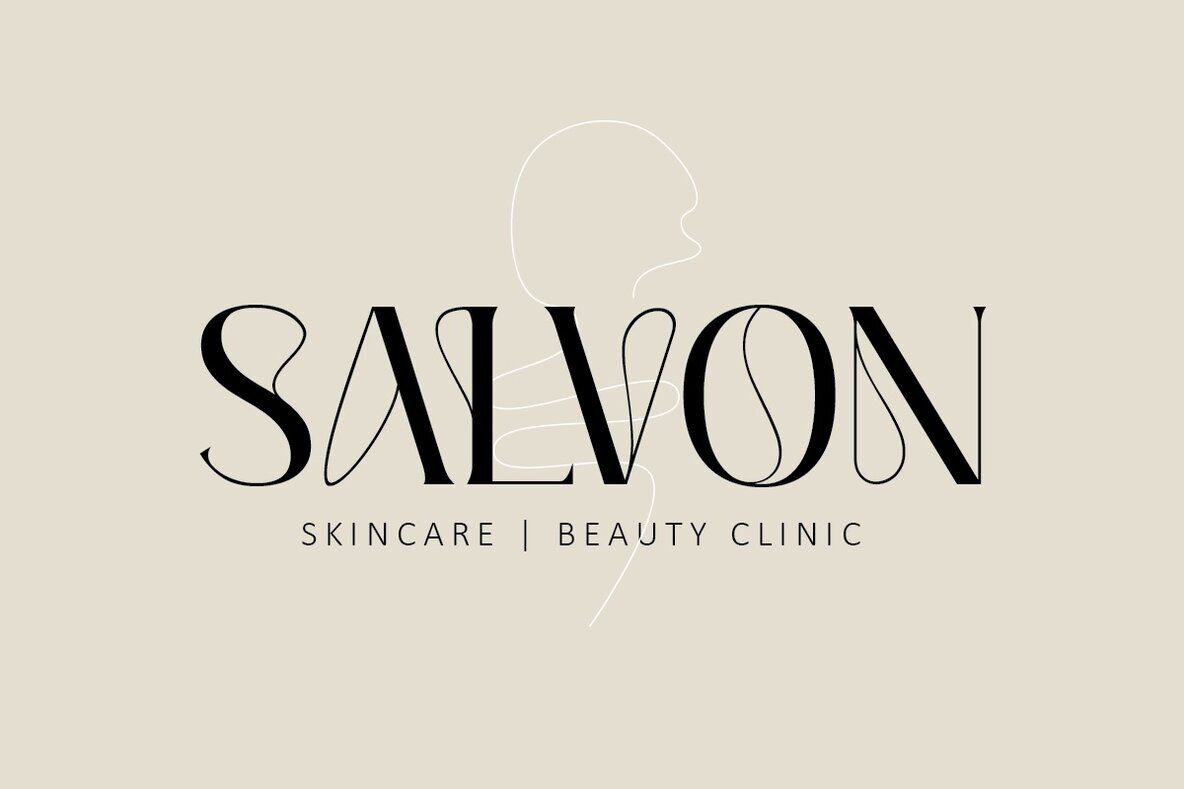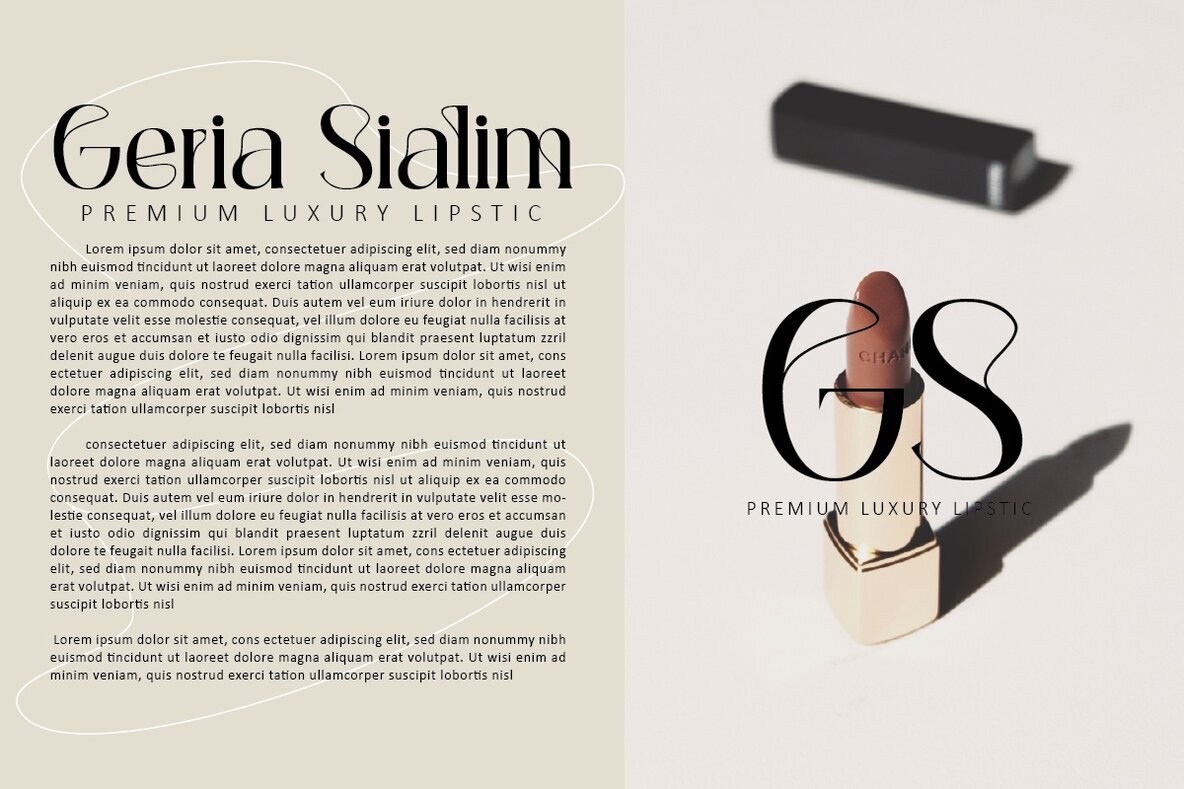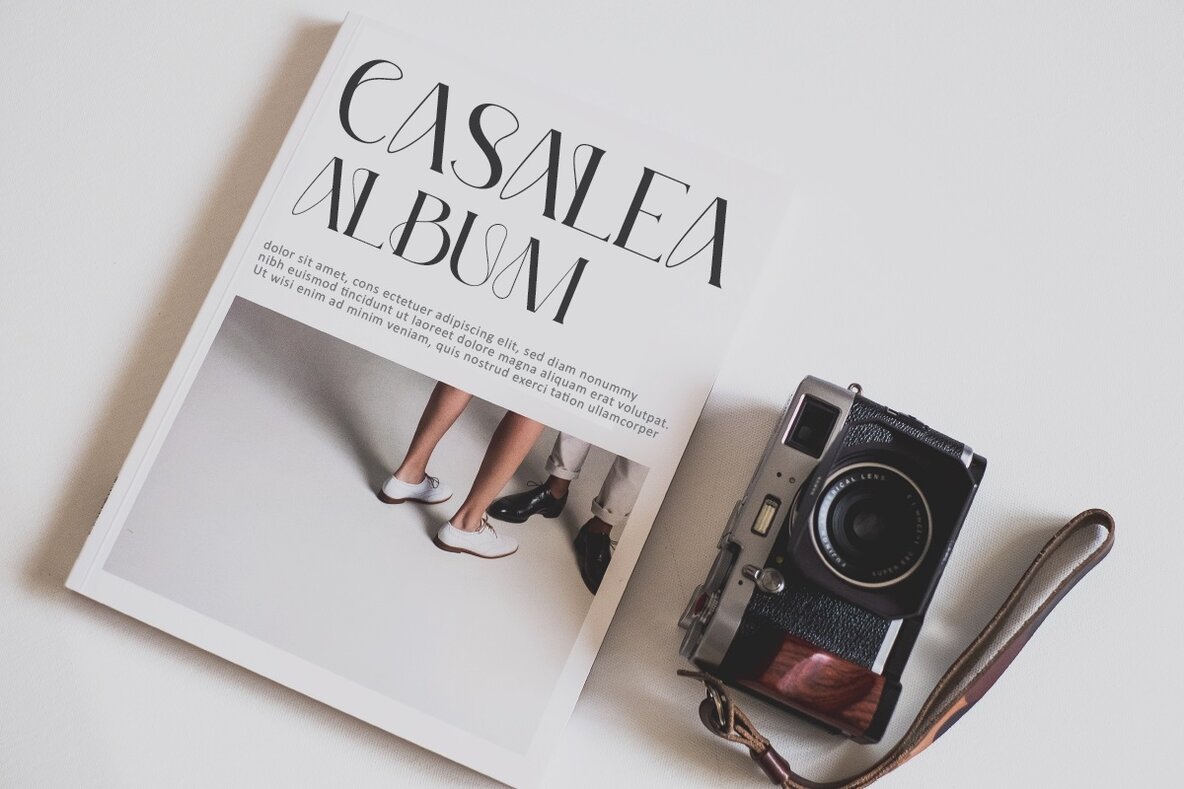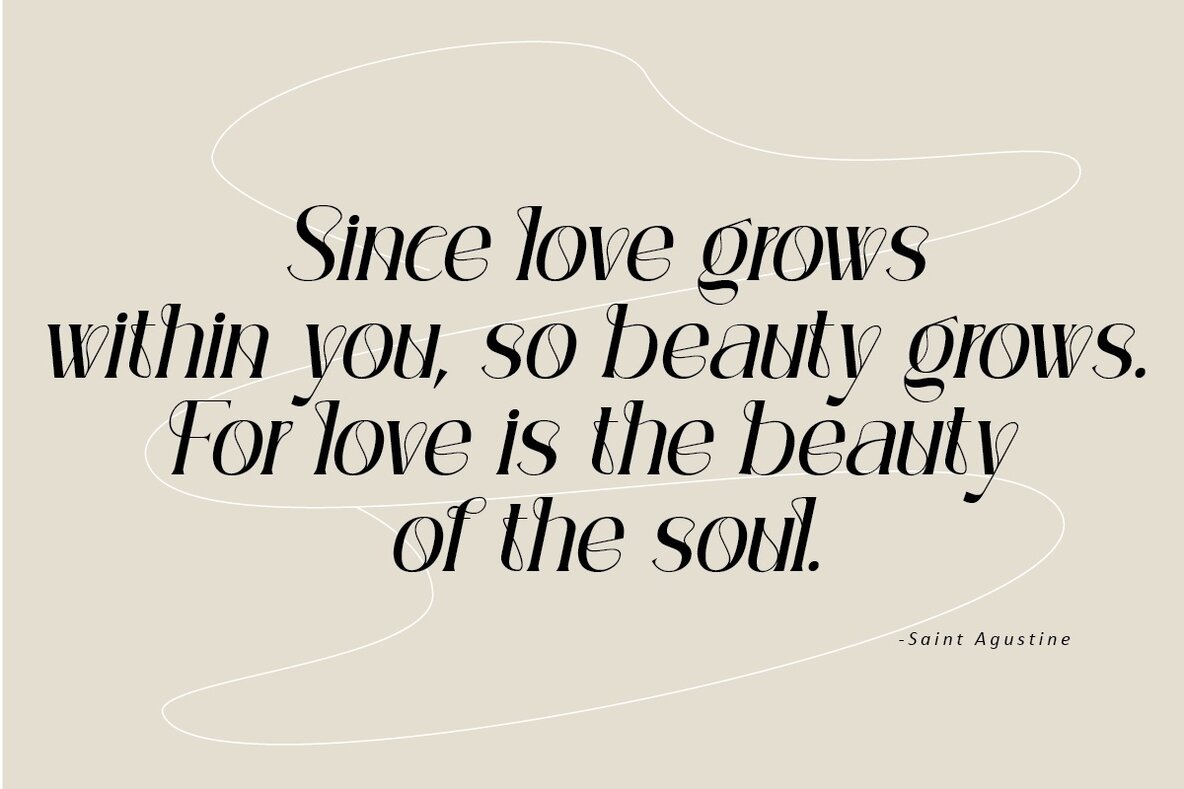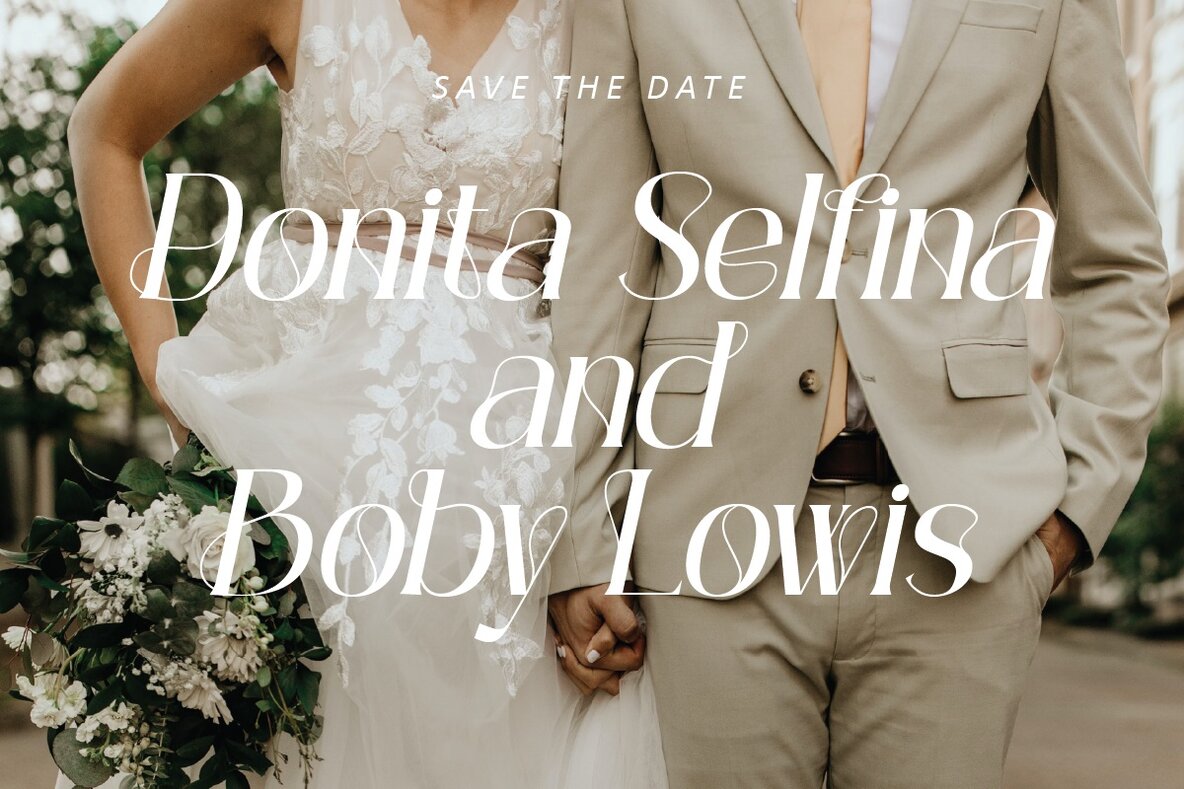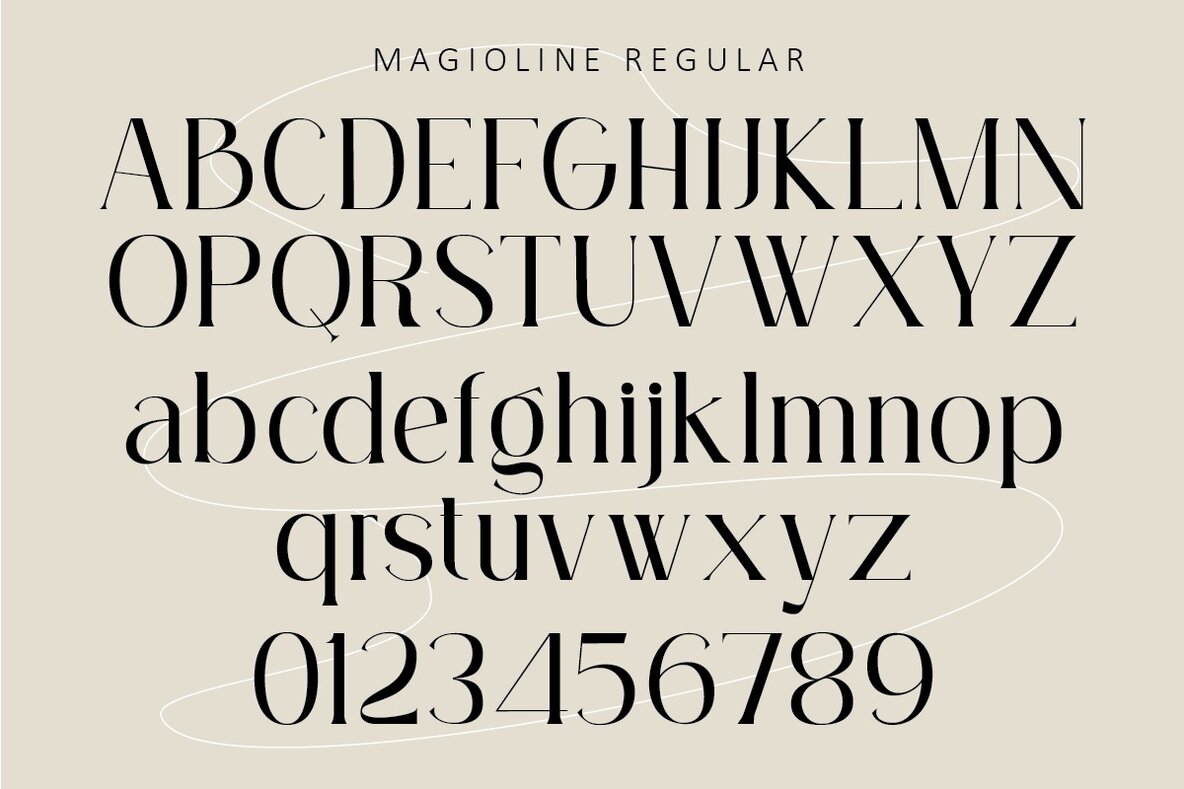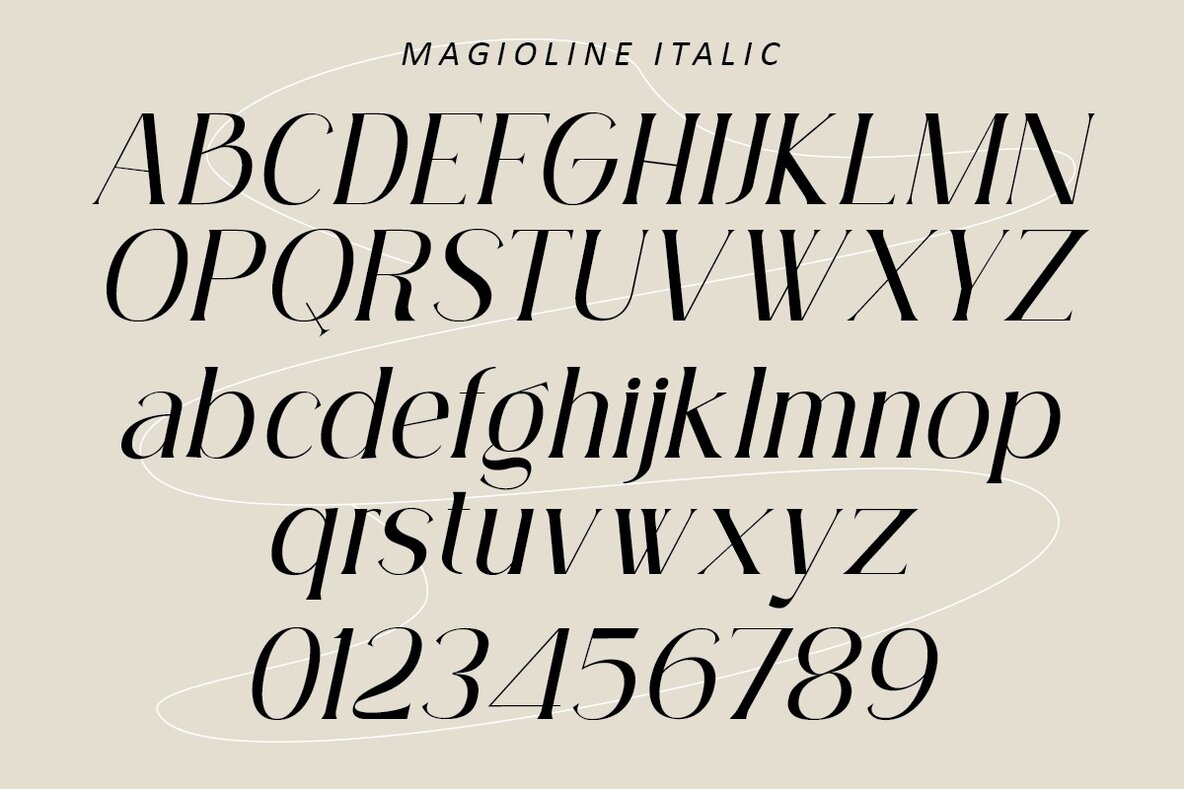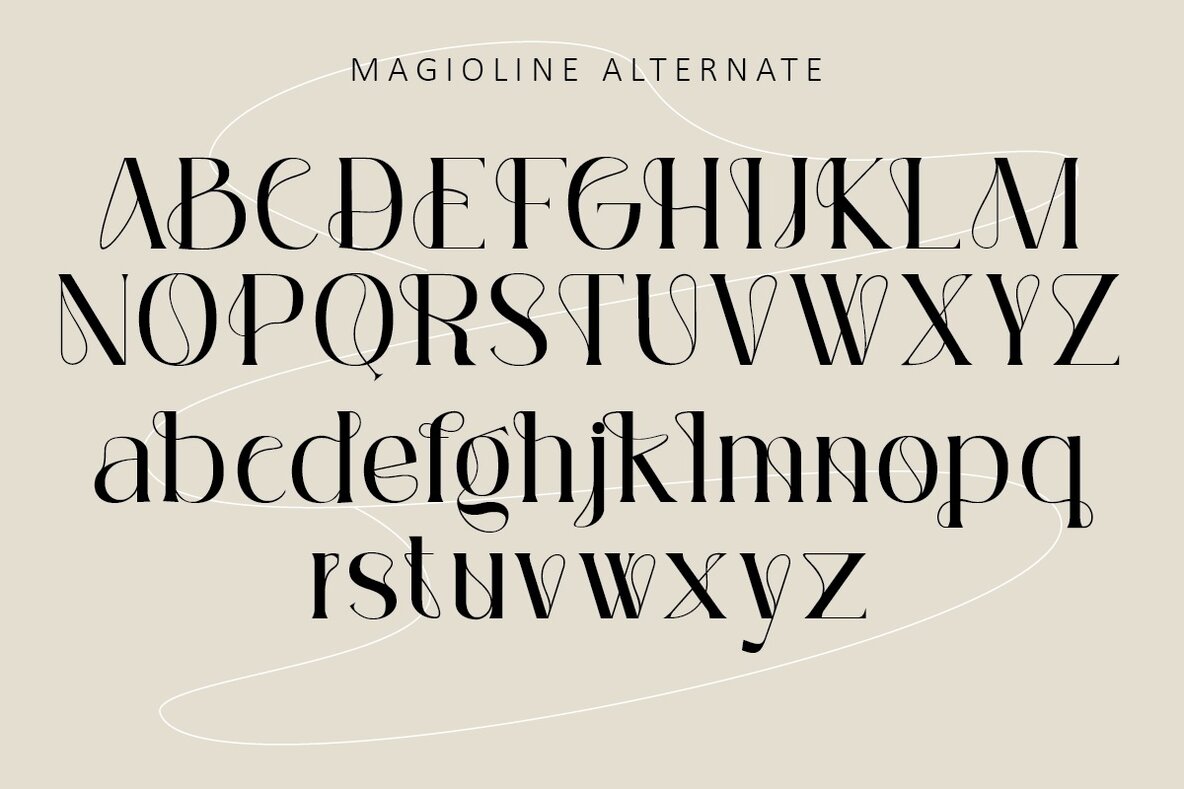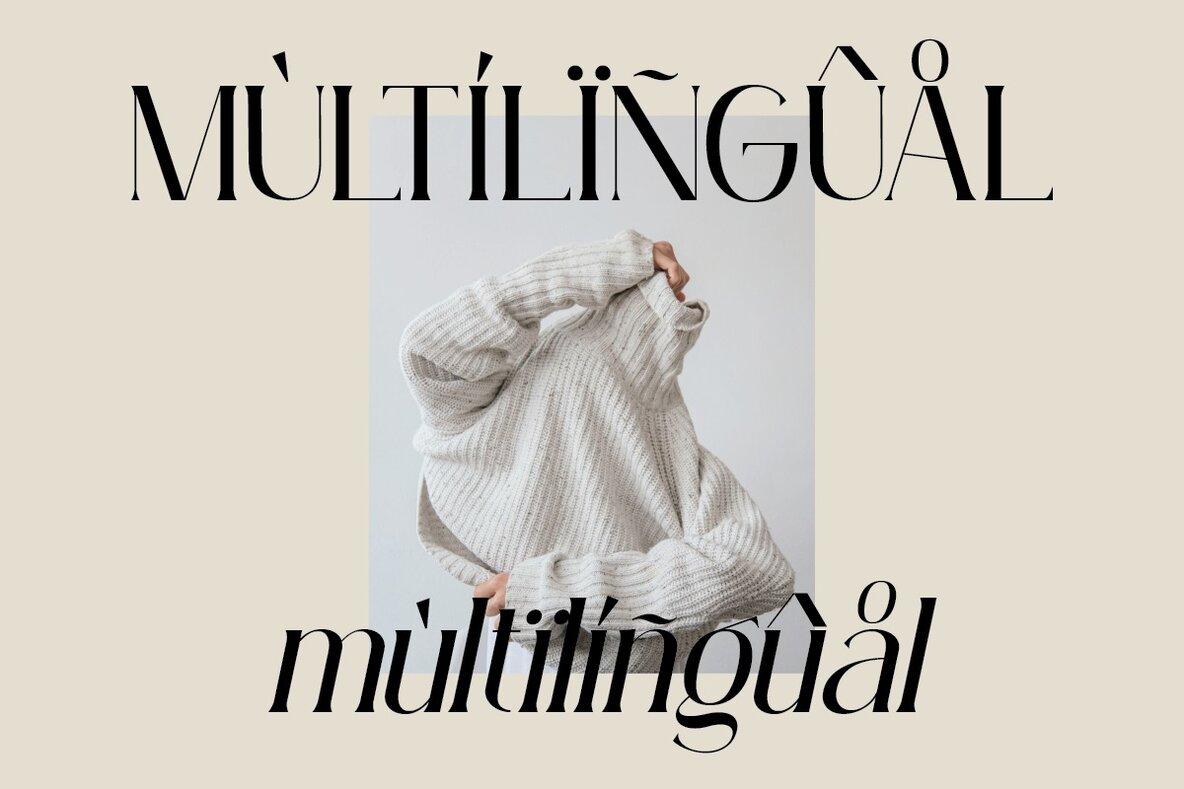
Magioline Font
Magioline Regular
Magioline italic
Magioline by Muksal Creative presents a sophisticated serif typeface accented with unique alternate glyphs and ornamental touches. This multifaceted font offers multilingual support, catering to a wide array of language needs. Its versatility ensures excellence across various sizes, making it suitable for both striking display and subtle text at smaller scales. Perfectly tailored for editorial projects, logo design, and branding, Magioline also elevates product packaging and magazine headers. Use it as a refined text overlay against any image backdrop, infusing your design with a stylish flair.Magioline: A Modern Serif with Elegance